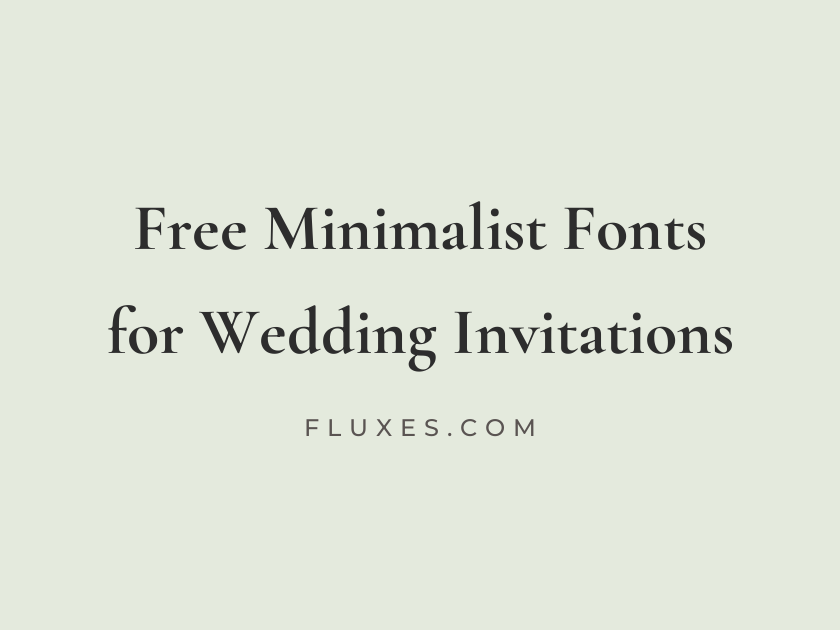
55 Best Free Minimalist Fonts for Wedding Invitations
Minimalist wedding stationery lives and dies by its type. When the palette is restrained, a single ivory card with a few carefully chosen words, the typeface has nowhere to hide, and every serif, letterspaced cap, or script flourish carries the entire mood of the day. The good news for couples and designers working on a budget is that Google Fonts has become a genuinely deep well for elegant wedding fonts, offering the same restrained, editorial quality once reserved for paid foundries, free to download and use on invitations, save-the-dates, menus, and websites alike.
The fonts gathered here lean into that pared-back aesthetic: quiet serifs with fine hairlines, clean geometric sans-serifs for details and RSVP cards, and a handful of understated calligraphic scripts for names and monograms. Used with generous spacing and plenty of white space, any of them will feel at home on a minimalist invitation suite.
Modeled on the Garamond tradition but stretched and refined for display use, this is one of the most reached-for serifs in wedding design, and for good reason. Its high contrast and delicate hairlines look genuinely luxurious at 18pt and above, though it can feel thin and hard to read below that, so save it for headlines and names rather than body copy.
The sturdier sibling of Cormorant Garamond, with slightly less contrast and a touch more presence on the page. It suits couples who love the family’s romantic character but need something with a little more backbone for shorter invitation wording.
A faithful, scholarly revival of Claude Garamond’s sixteenth-century type, EB Garamond reads as timeless rather than trendy. It is one of the few display-worthy serifs on this list that also performs well as body text for longer wording like ceremony details or vow excerpts.
Sharp, high-contrast, and a little theatrical, Playfair Display gives an invitation a confident editorial voice, closer to a fashion magazine masthead than a handwritten note. It pairs beautifully with a plain geometric sans for the finer details, letting the contrast between the two do the styling work.
Originally optimized for on-screen reading, this Baskerville revival has a warmth and steadiness that suits digital save-the-dates and wedding websites particularly well. It is a touch heavier than most fonts here, which makes it a dependable choice when the invitation needs to hold up in low-contrast printing.
A restrained, book-like serif with an academic pedigree, Crimson Pro feels unfussy and sincere. It is a strong pick for couples who want elegance without any hint of ornamentation.
Lora’s slightly brushed, calligraphic curves give it more warmth than a typical text serif, making it a comfortable choice for longer paragraphs of invitation copy, thank-you notes, or ceremony programs. It reads as friendly rather than formal, which suits relaxed, garden-style weddings.
Built by Adobe as the serif companion to Source Sans, this typeface is calm, legible, and entirely unshowy. It is best suited to the practical parts of a suite, such as details cards and envelope addressing, where clarity matters more than personality.
Designed for digital reading, Spectral has an understated literary quality and holds up cleanly at small sizes, which makes it useful for wedding websites and PDF programs as well as print. Its lighter weights are especially good for a soft, minimalist look.
Marcellus has the poise of carved stone lettering, wide, even, and slightly formal, without ever tipping into heaviness. It works exceptionally well letterspaced for a monogram line or venue name.
A quietly scholarly serif with roots in classical book typography, Cardo brings a sense of history and permanence to an invitation. It is a good alternative to EB Garamond for couples who want something slightly less common.
Sturdy and warm, Vollkorn was built as a workhorse text face, so it handles dense invitation wording, RSVP instructions, and reception details with unusual comfort. It will not win points for drama, but it will never look out of place.
Inspired by classical Roman inscriptions, Cinzel is built almost entirely of capitals and small caps, so it belongs on a headline, monogram, or names line rather than in a sentence. Set with wide letter spacing over a cream card, it gives a minimalist suite real gravitas.
Always test scripts and thin serifs on an actual printed proof. Fonts like Tangerine or Antic Didone can look flawless on screen and disappear on a home printer or a low-cost print run.